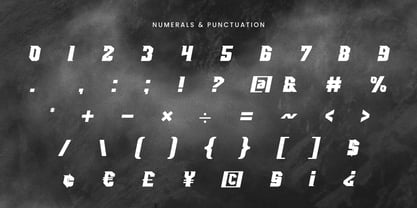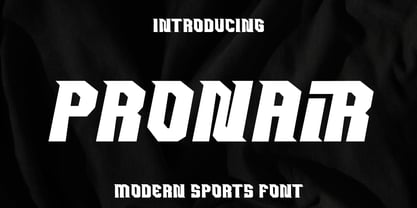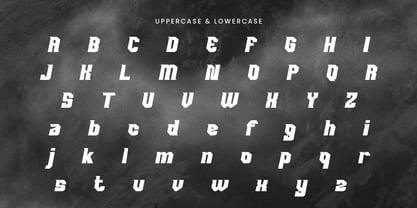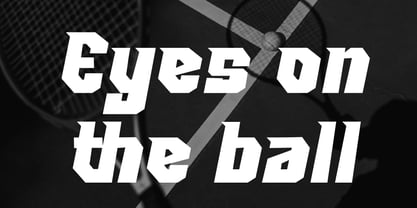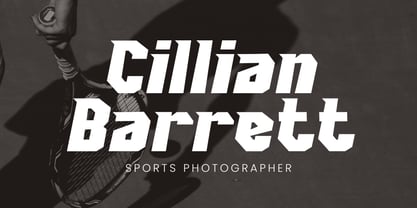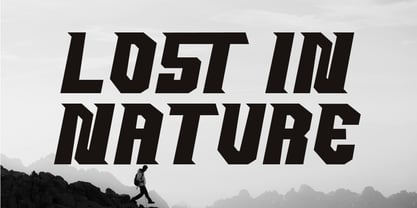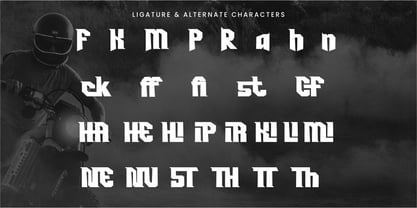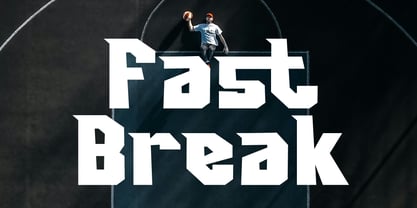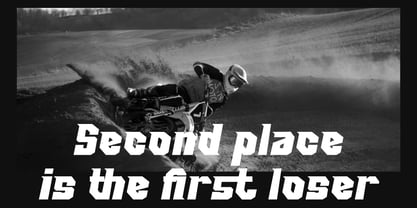
Pronair
by Rvandtype
The Pronair Font Family was designed by Randi Irvan and published by Rvandtype. Pronair contains 2 styles and family package options.
PRONAIR font was born from the spirit of speed, adrenaline, and the courage to push beyond limits. Inspired by the high-octane world of racing, every sharp edge and bold curve carries the energy of motion, ready to launch forward. Its aggressive cuts and dynamic angles resemble daring tracks and steep turns, challenging anyone to keep up. With distinctive ligatures and alternates, PRONAIR font offers creative freedom to craft typography that’s not only visually powerful but also carries a signature identity that stands out from the crowd. PRONAIR font is PUA-encoded, allowing effortless access to all glyphs, swashes, and alternate characters.